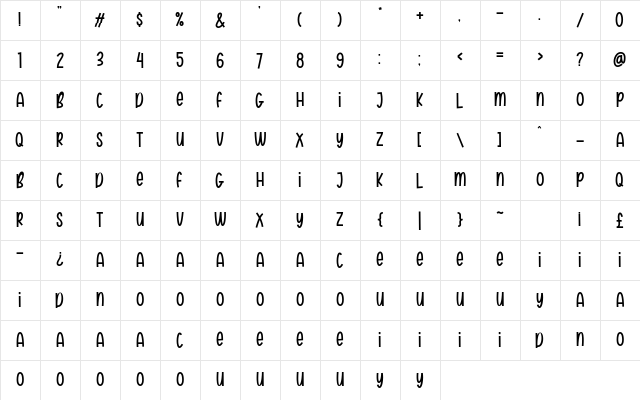
Hannie Bunny personaluse Regular
| Foundry | StudioAktype!" |
| Designer | Jani Nurman |
Design Context for Hannie Bunny personaluse Typeface
Hannie Bunny personaluse is a composed and adaptable typeface that performs quietly and consistently across a wide range of design contexts.